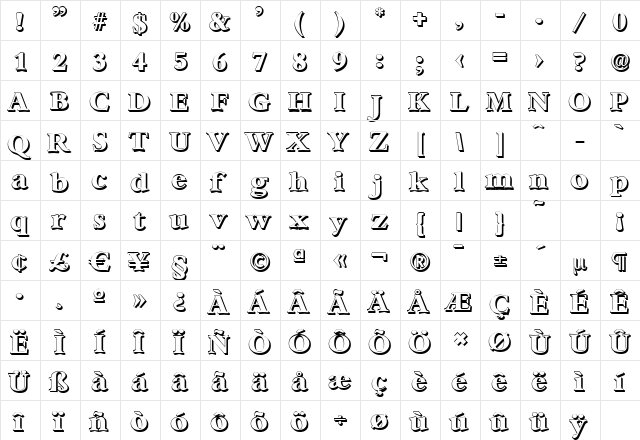
BernsteinShadow-Xbold Regular
Design Context for BernsteinShadow-Xbold Typeface
BernsteinShadow-Xbold brings ornamental detail and strong personality to headlines and identities, where visual impact matters more than quiet functionality. The heavy weight commands attention and anchors typographic hierarchies.
Font Pairing: Pair with a clean neutral sans-serif for body copy to let BernsteinShadow-Xbold's character lead without overwhelming the composition.
Pro Tip: Use BernsteinShadow-Xbold exclusively at display sizes — it was designed to be seen, not read at length. Let a neutral companion handle body copy.